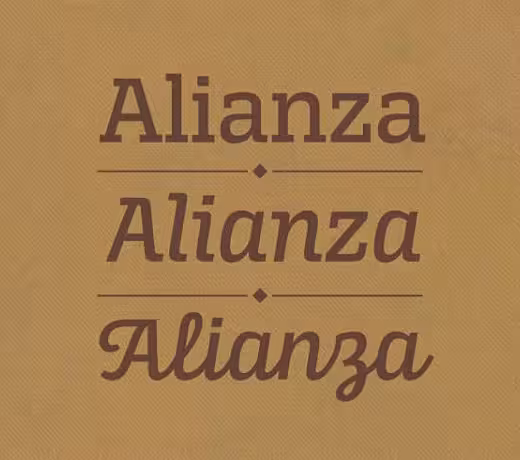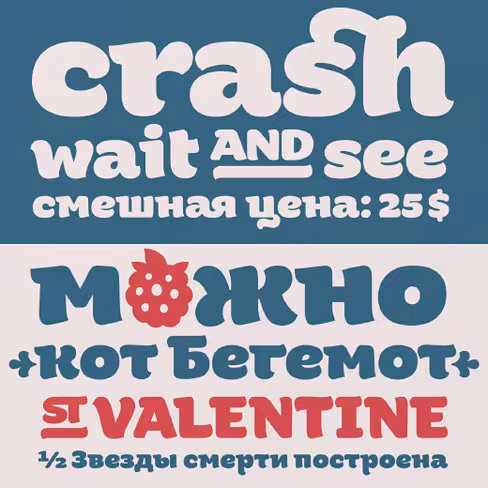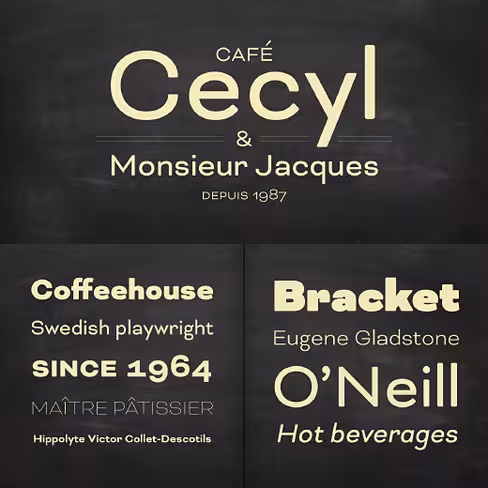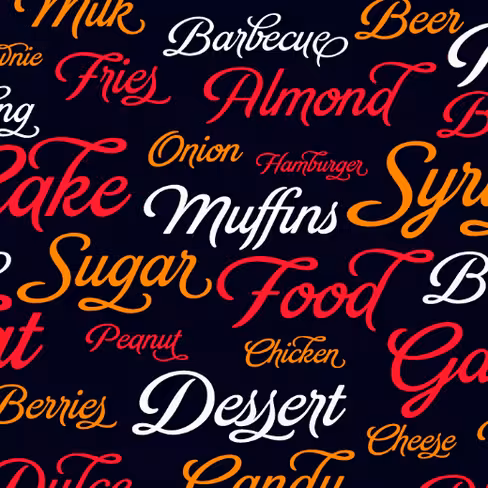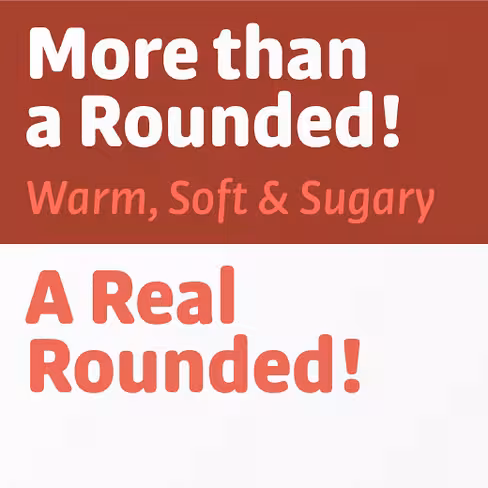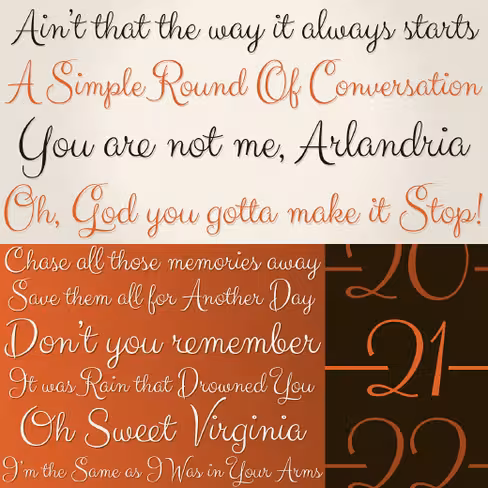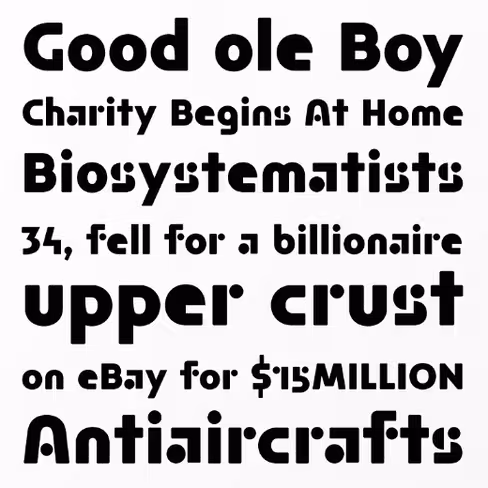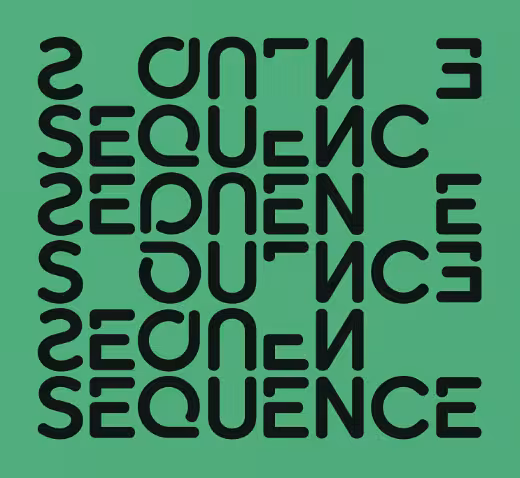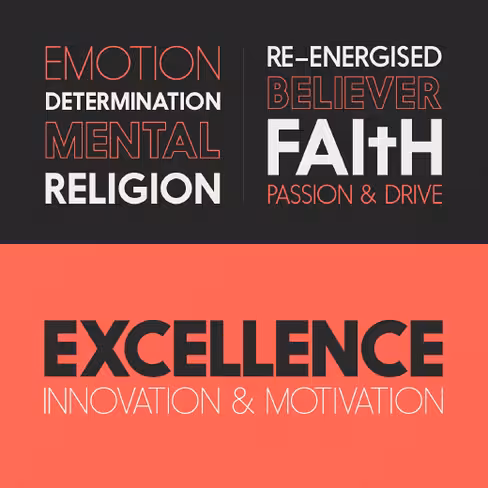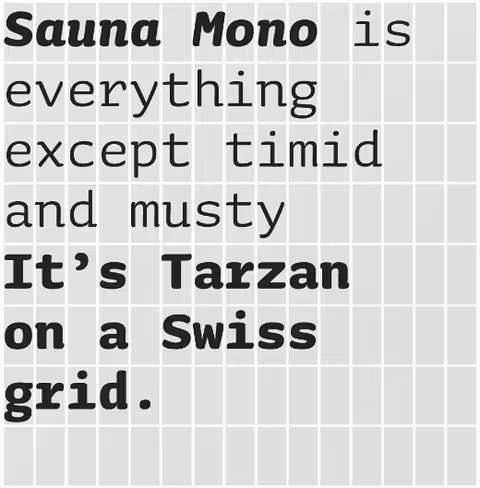
30 of the most beautiful typefaces released last month
Designing a typeface is a wildly difficult process, and to actually come out at the end with something attractive takes an extreme amount of skill and patience.
Commercial Type: Dala Moadala-moa
Originally inspired by worn gravestone lettering and lettering on shipping crates, the elegance of the forms belies their everyday origins.
Thinkdust: Nanaminanami
A brand new Japanese-inspired type family.
Lián Types: Brandbrand
A really soft chancery cursive turned into a script.
Incubator: Sharp Sanssharp-sans
Injects some much needed humanism into the Futura model.
Dada Studio: Clavoclavo
It’s warmth comes from subtle details, classical proportions and traditional forms.
Sudtipos: Rolling Penrolling-pen
Rolling Pen runneth over with alternates, swashes, ligatures, and other techy perks.
Type Together: Bree Serifbree-serif
A young and energetic upright italic.
Corradine Fonts: Alianzaalianza
A complex typographic system which includes three different but complementary styles.
OurType: Remoremo
Warmth and good humour, with italics that are nothing less than sunny and delightful.
Kostic: Bicyclettebicyclette
Carefully balanced between gentle curves and sharp angles.
Tipografies: Bulo Roundedbulo-rounded
A smooth effect that brings a warm feeling.
Suitcase Type Foundry: Ladislavladislav
A tribute to the typography of Ladislav Sutnar.
Typetanic: Transat Texttransat-text
A geometric sans-serif, easy to read at small sizes, but also performs admirably in larger display settings.
Underware: Sauna Monosauna-mono
A monospaced typeface with an unusual flair.
Wordshape: Cerncern
40 weights of neutral, yet formally nuanced grotesk typefaces.
Lost Type Co-op: Klinic Slabklinic
A workhorse that marries personality and functionality.
Talbot Type: Kroppen Roundkroppen-round
A geometric, stencil-style font.
Exljbris: Tensotenso
A sans-serif with character.
Optimo: Px Groteskpx-grotesk
When pixels become curves.
Art. Lebedev Studio: ALS Malinaals-malina
A plump, sweet tempered display typeface.
Hamilton Wood Type Foundry: HWT Geometricgeometric
A curious angled wood type in 6 styles.
Delve Fonts: Sketchnotesketchnote
When a handcrafted aesthetic and ease-of-use are desired.
Colophon: Lisbonlisbon
A geometric stencil typeface based on an original metal stencil.
Alphabet Soup: Dark Angeldark-angel
A completely new take on the traditional blackletter font style.
Resistenza: Starburststarburst
A gestural light script.
Matt Waymouth: Onehunga Sansonehunga-sans
Crafted to reflect the charming inconsistencies and unique aspects of hand-painted type, in a bold, all-caps package.
Stiggy & Sands: Carioca Scriptcarioca-script
A signature script that is both elegant yet slightly bouncy and truly sings.
Atipo: Salomésalome
A unique and flavorful design.
Insigne: Le Havre Titlingle-havre-titling
A fresh, fashionable take on classical forms.
Moretype: Hylahyla
Big, bold, playful, geometric, fun, modern, friendly, jolly, experimental and free.